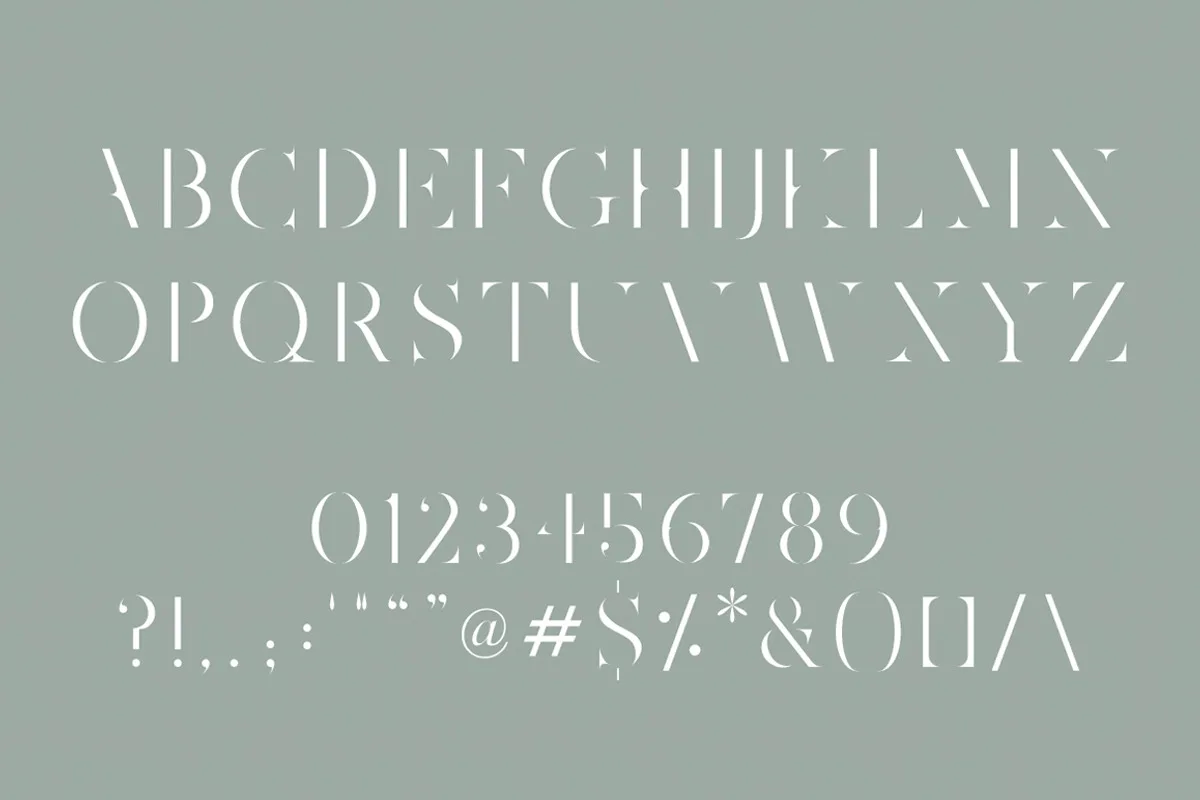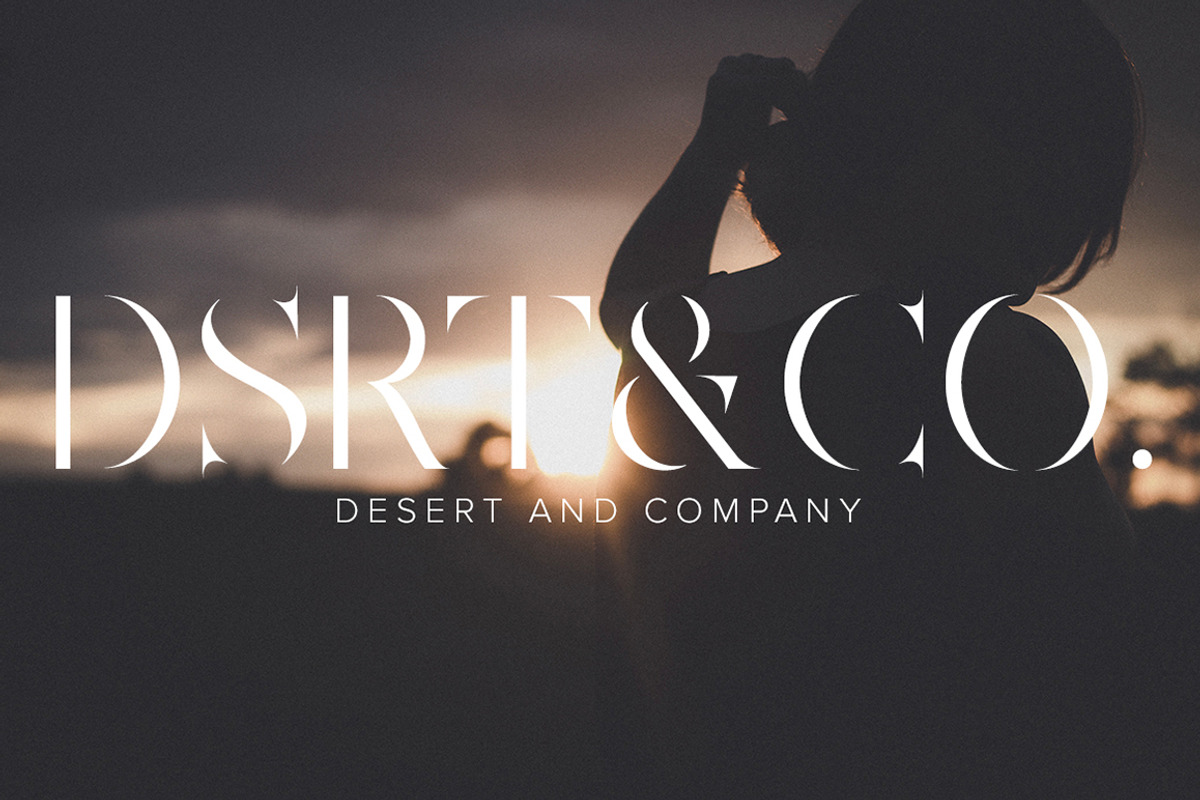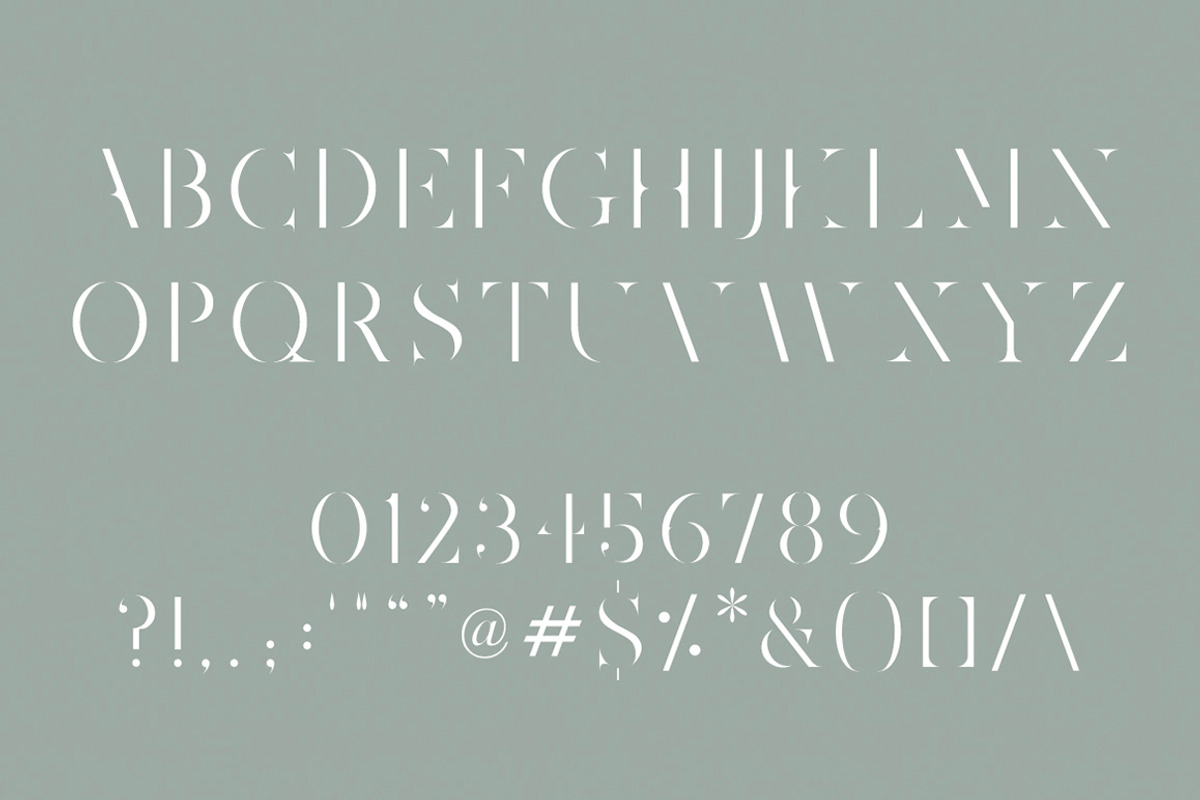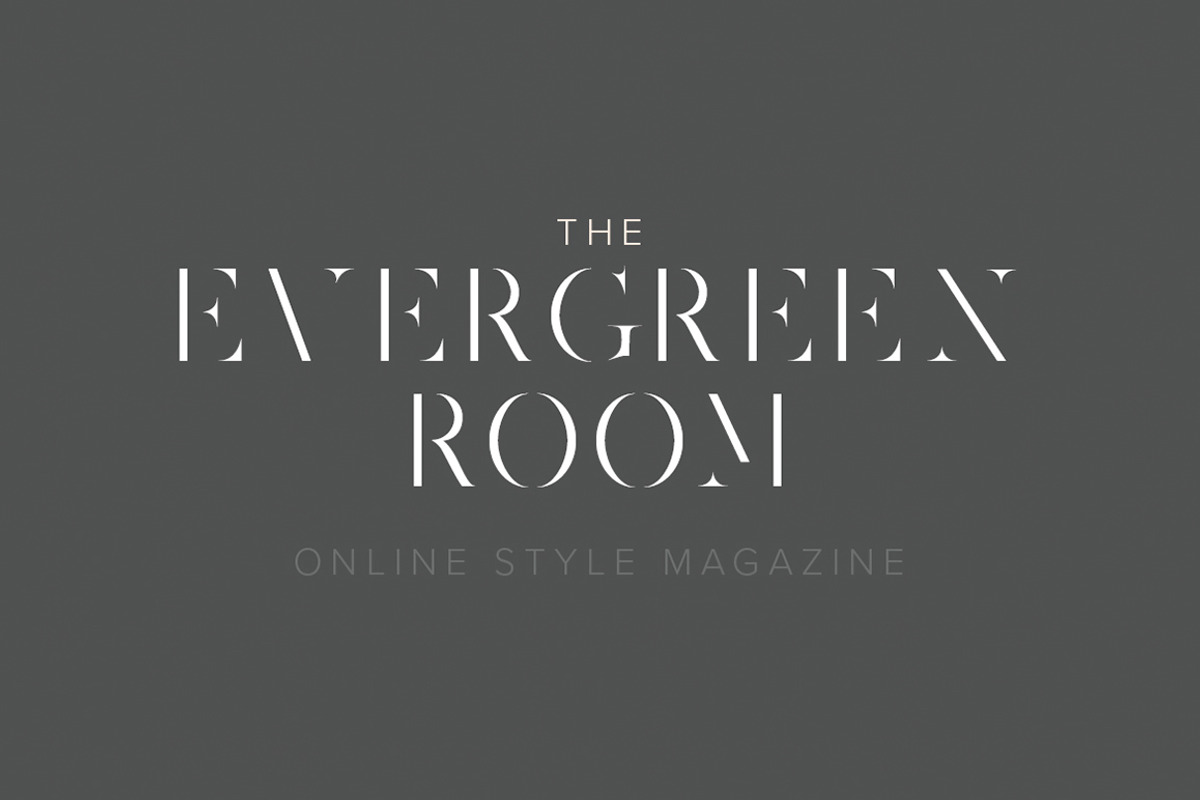
Joshua Tree is a gorgeous all-uppercase serif typeface that features clean lines, thin serifs, and letter gaps. It looks perfect when used for logos, headings, invitations, and more.